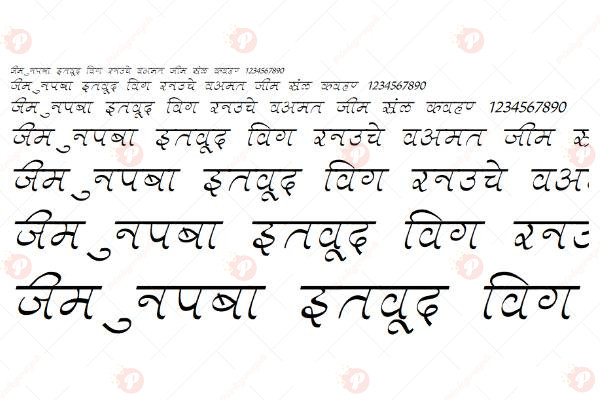
The Aman Italic Font is a modern and stylish slanted typeface that brings elegance and emphasis to your designs. With its sleek italic strokes, this font is perfect for quotes, branding, invitations, posters, magazines, social media graphics, and editorial layouts.
If you want your typography to feel dynamic, expressive, and eye-catching, Aman Italic is the perfect choice for both digital and print projects.
Style: Italic / Slanted / Modern Typeface
Perfect for: Quotes, Branding, Invitations, Posters, Editorial & Social Media
Bring movement and sophistication to your designs with the Aman Italic Font.
| Optimum Size | Large (Display / Poster) |